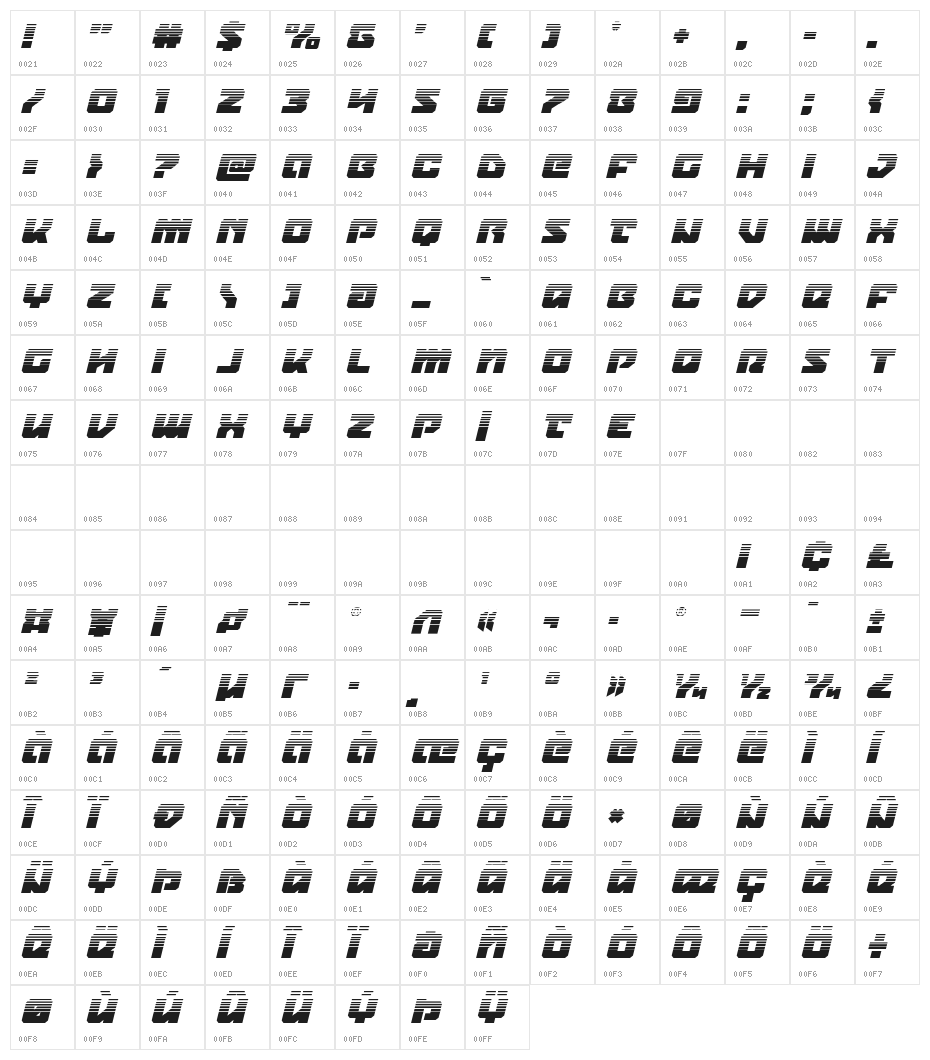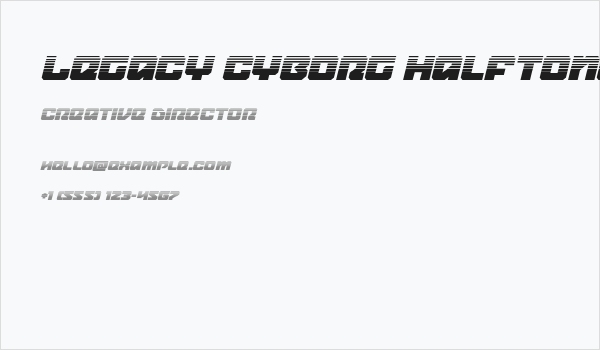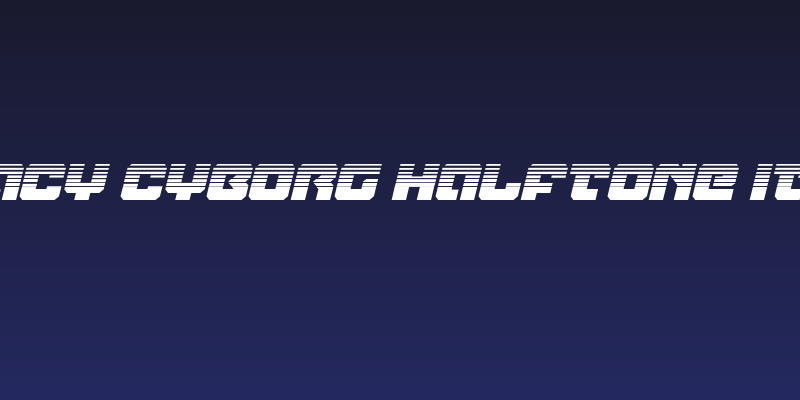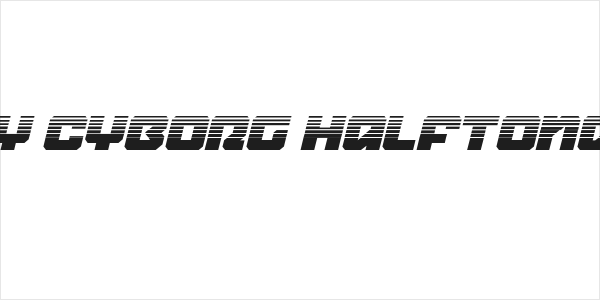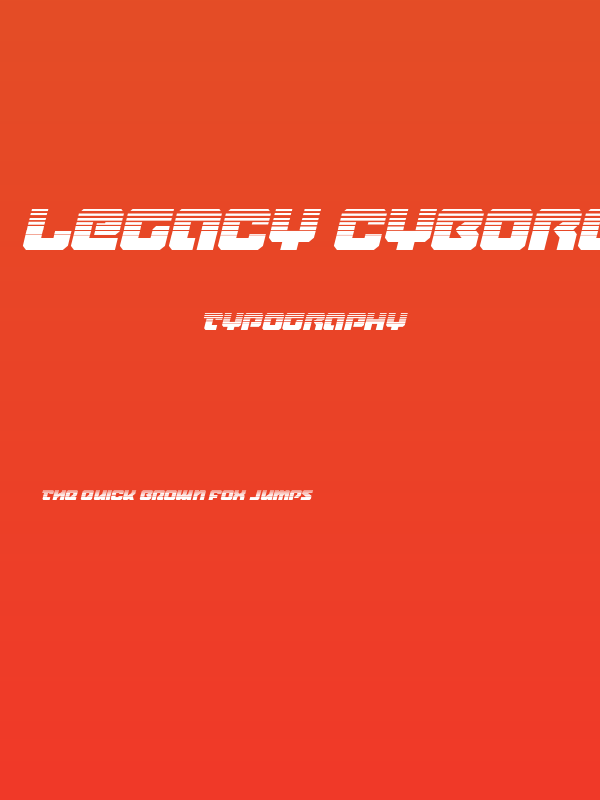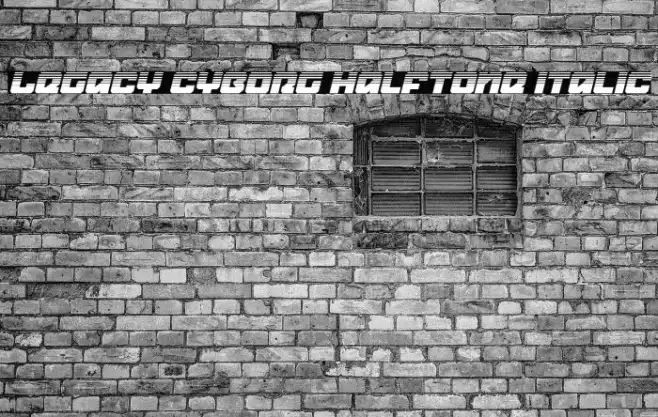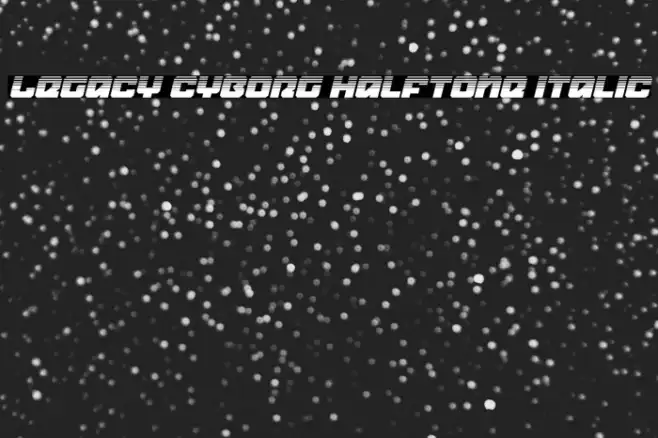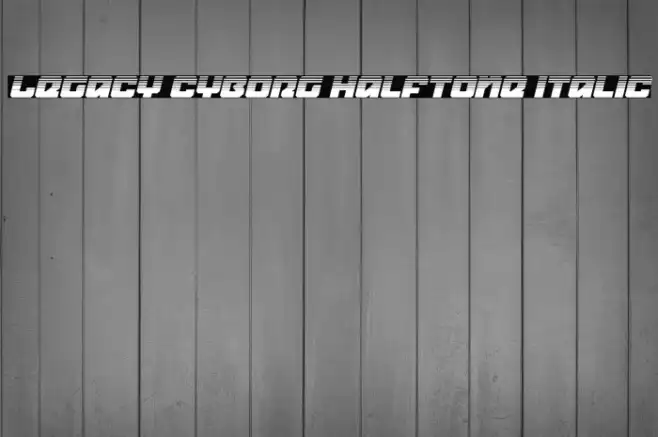
Legacy Cyborg Halftone Italic Font
Legacy Cyborg Halftone Italic Description
This font features a futuristic and bold design with a distinct halftone effect that gives it a unique, digital appearance. The characters are italicized, adding a dynamic and forward-leaning style. The uppercase and lowercase letters maintain a consistent geometric structure, with sharp angles and a sense of motion. The numbers and special characters follow the same design principles, ensuring uniformity across all glyphs. The halftone effect creates a layered look, reminiscent of digital or cybernetic themes, making it ideal for projects that require a modern and tech-savvy aesthetic.
| Proposed Projects | Ideal for sci-fi movie posters, tech company logos, video game titles, and digital art projects. |